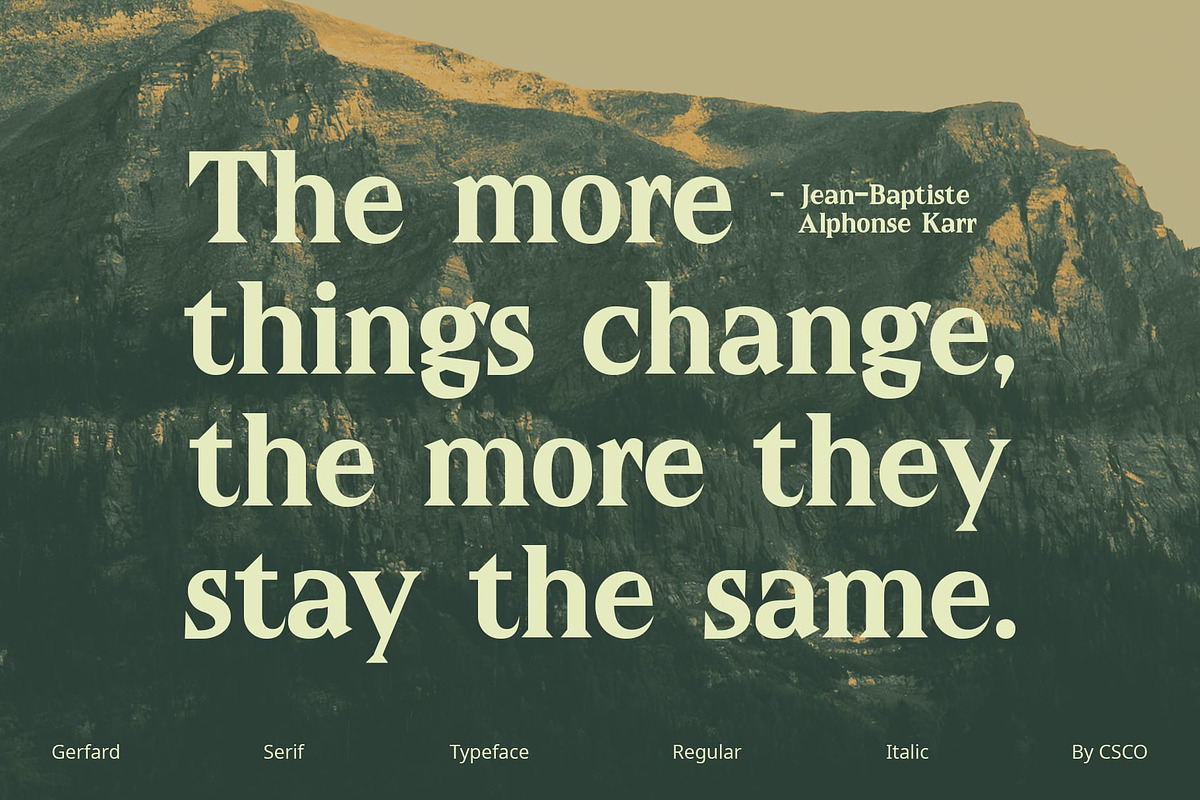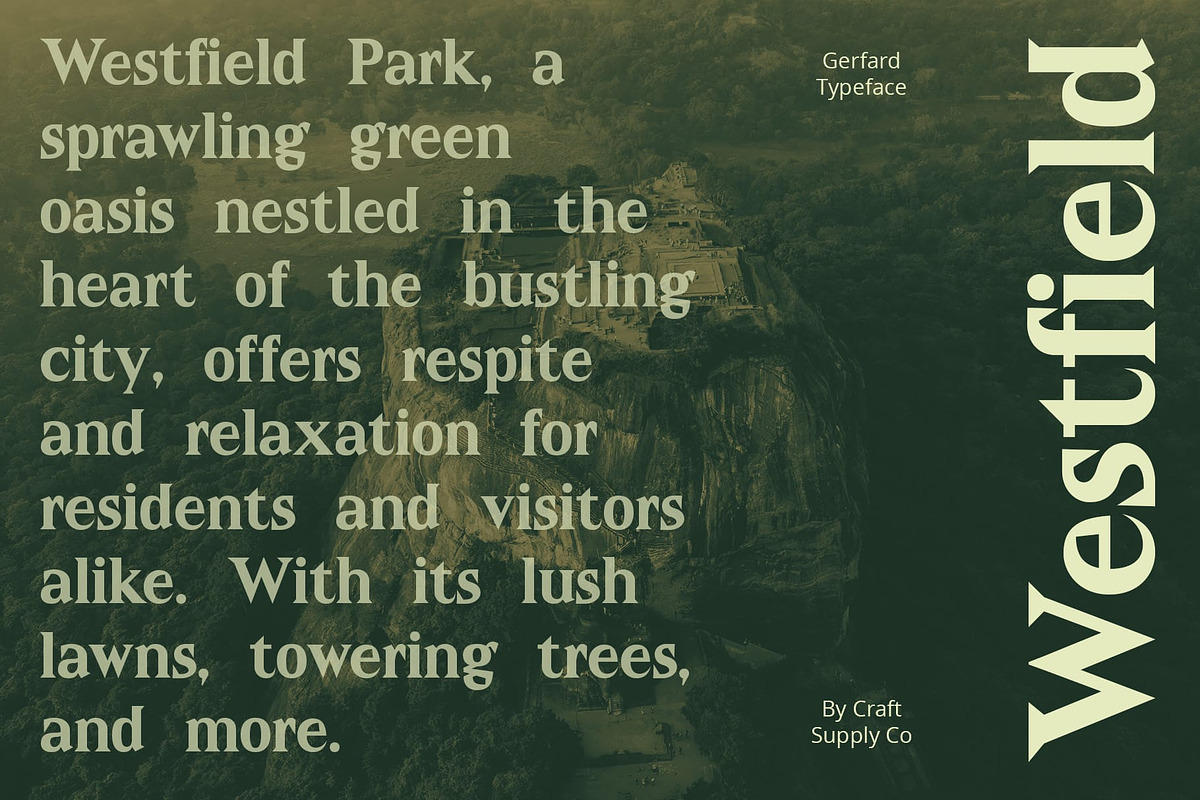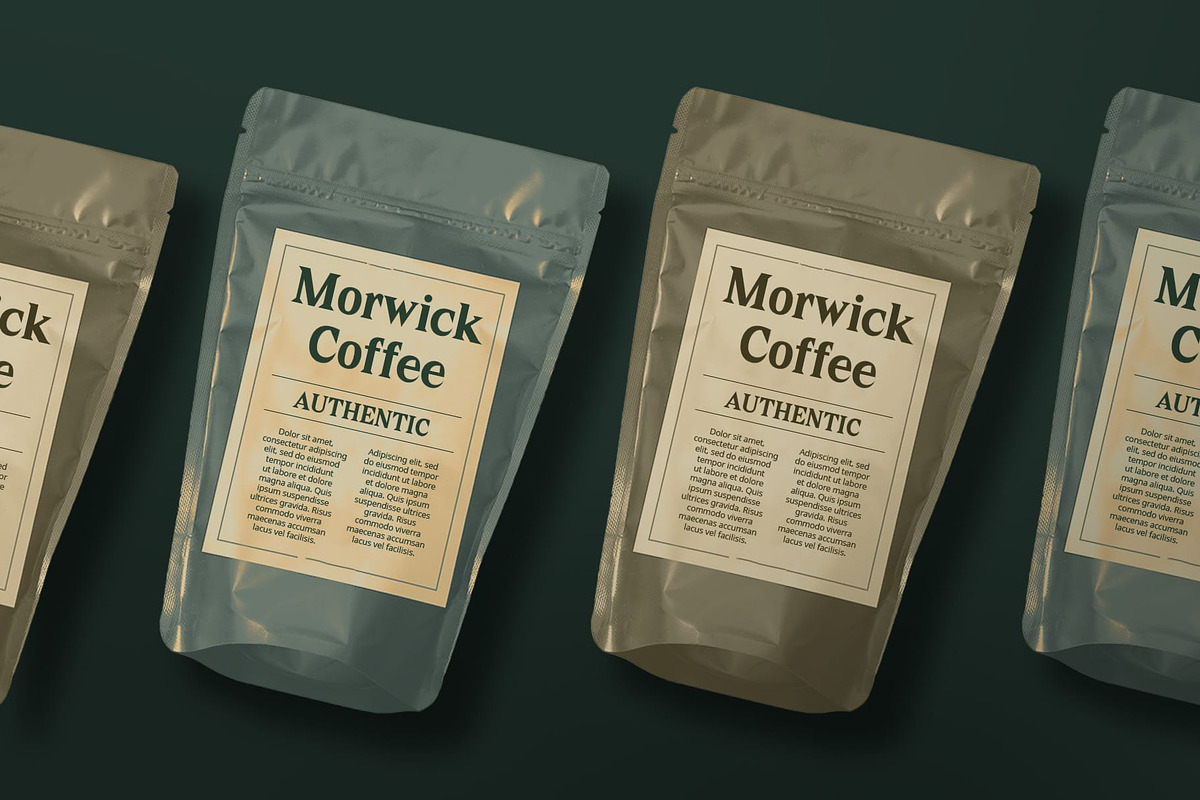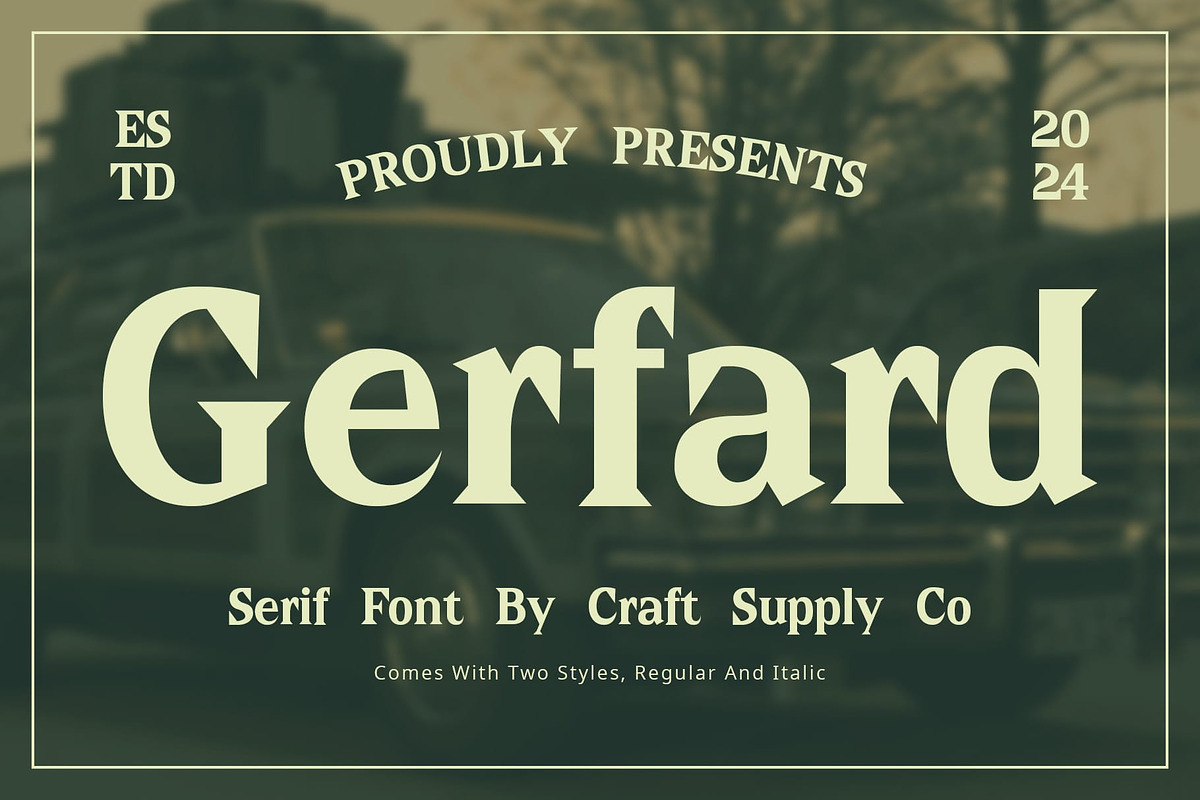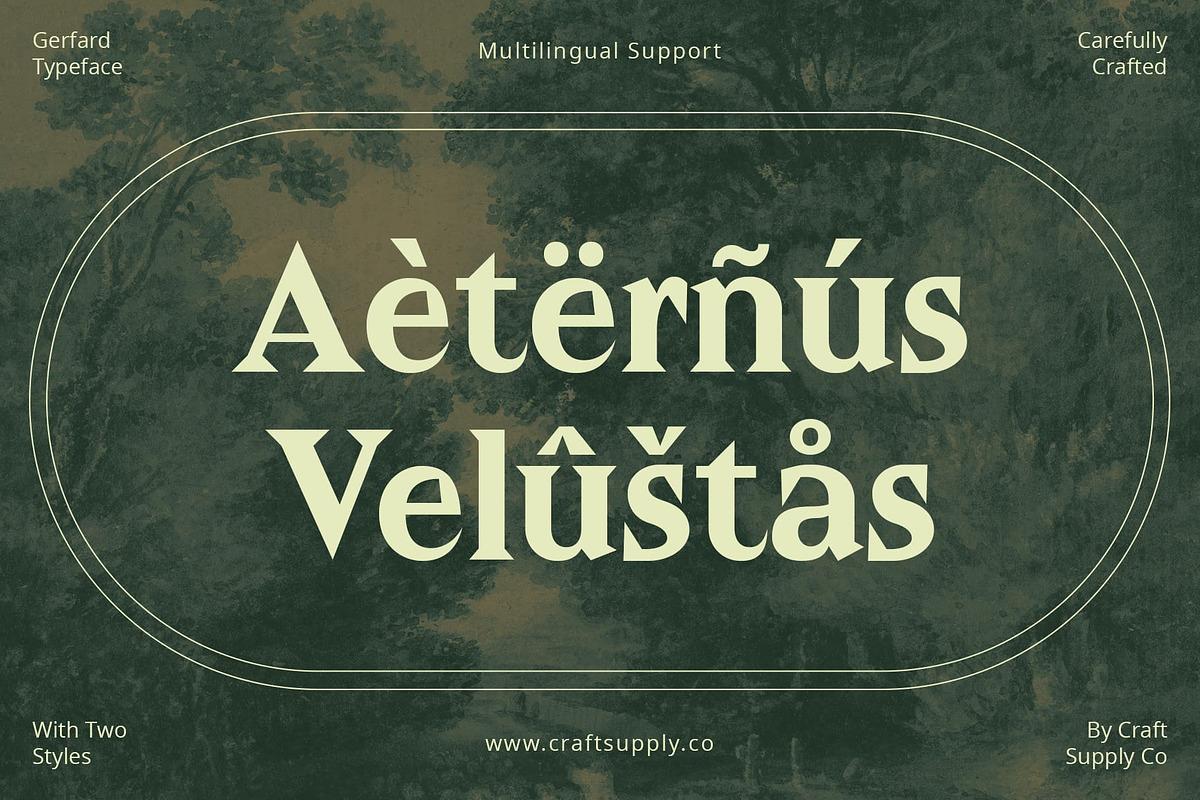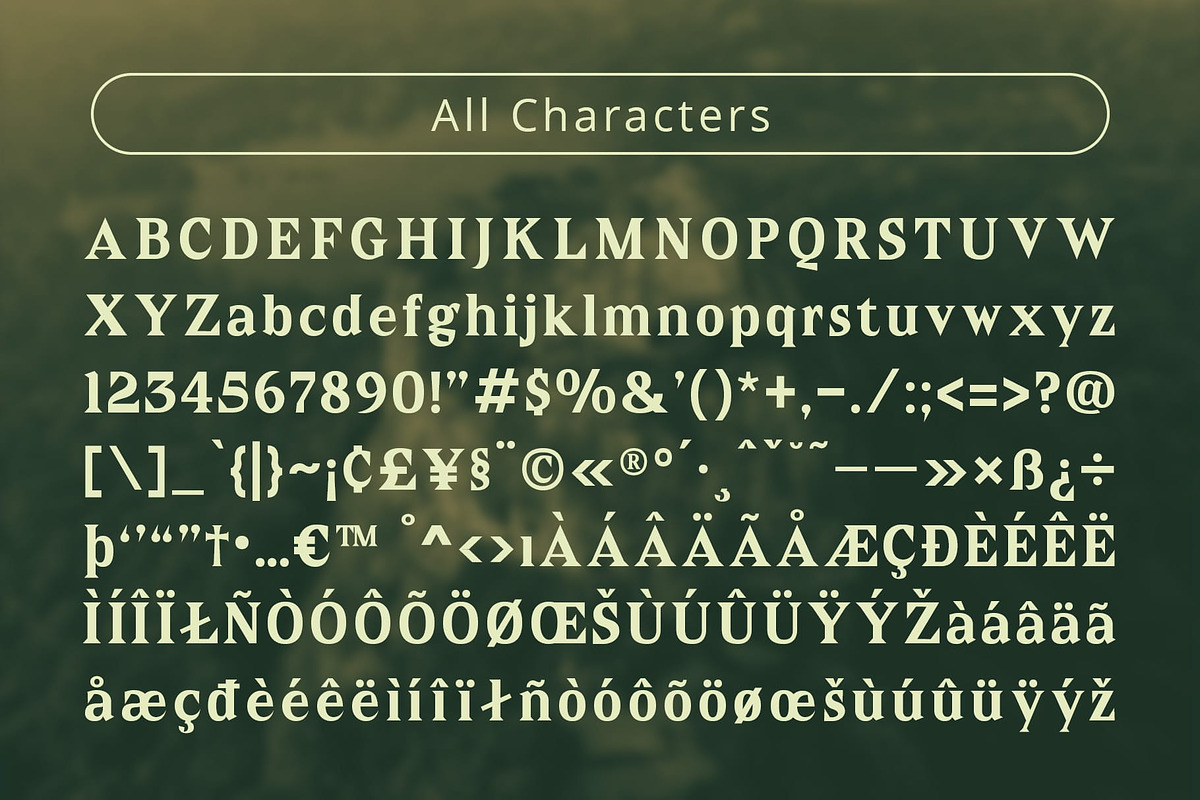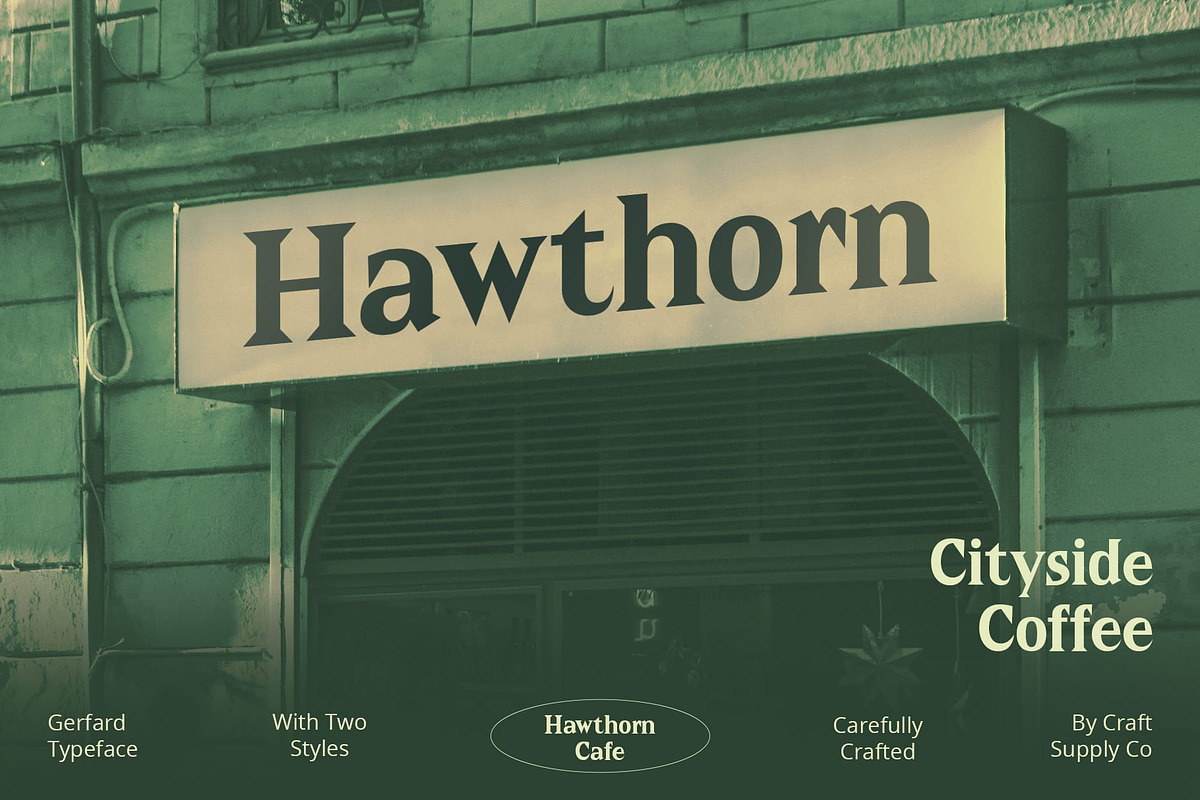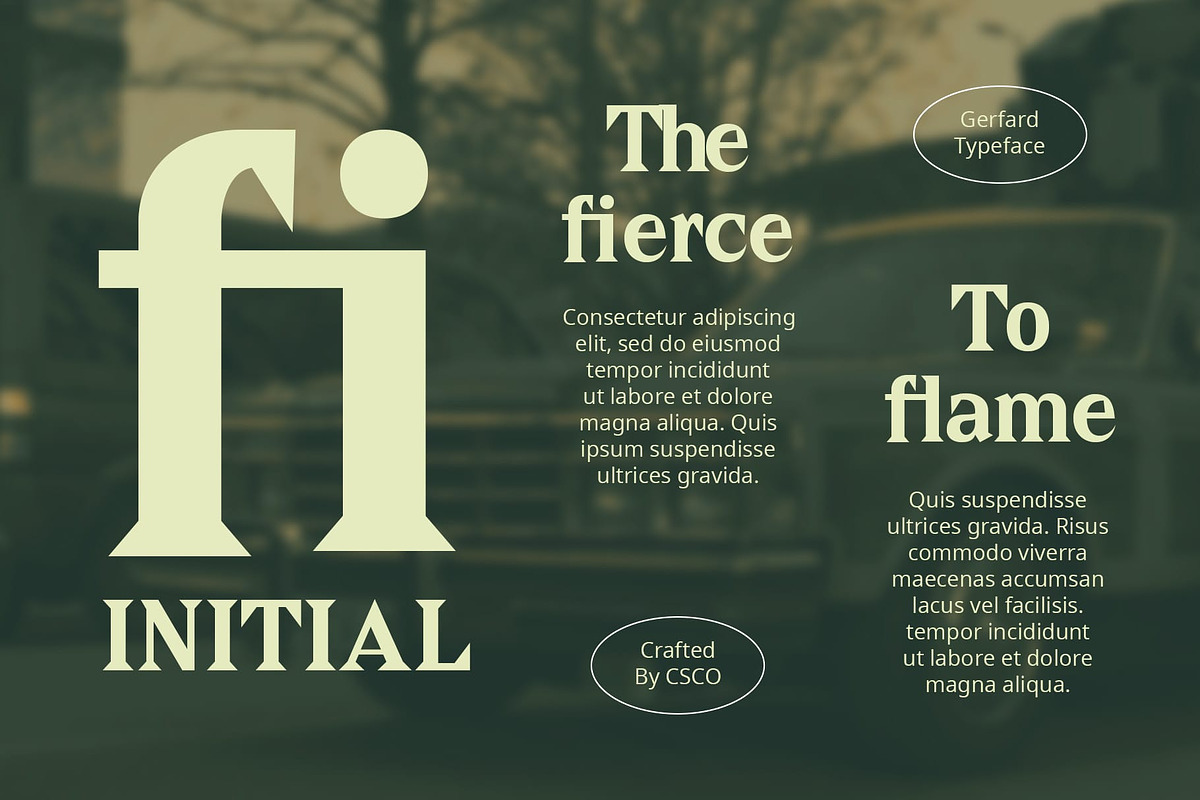
Gerfard
Gerfard: Bold and Assertive Serif Typeface
Striking Wedge Serifs Gerfard features distinctive wedge serifs that command attention with their bold and assertive appearance. Each character exudes strength and stability, making it ideal for projects that require a strong visual presence.
Thick Stems for Emphasis With its thick stems, This font further reinforces its tegas (assertive) demeanor. The robustness of the stems adds weight to the typeface, ensuring that your message is conveyed with clarity and authority.
Versatile Application This font is well-suited for a wide range of applications, from branding and editorial design to packaging and signage. Its commanding presence makes it a versatile choice for projects that demand attention and authority.
Classic Yet Contemporary While rooted in traditional serif design, This font exudes a contemporary vibe that sets it apart from conventional typefaces. Its unique combination of classic elements with modern aesthetics makes it a timeless choice for designers seeking versatility and impact.
Typeface with Character This font stands out as a typeface with character, thanks to its bold wedge serifs and thick stems. Whether used for branding, editorial layouts, or signage, This font brings a sense of tegas (assertiveness) and authority to every design project.